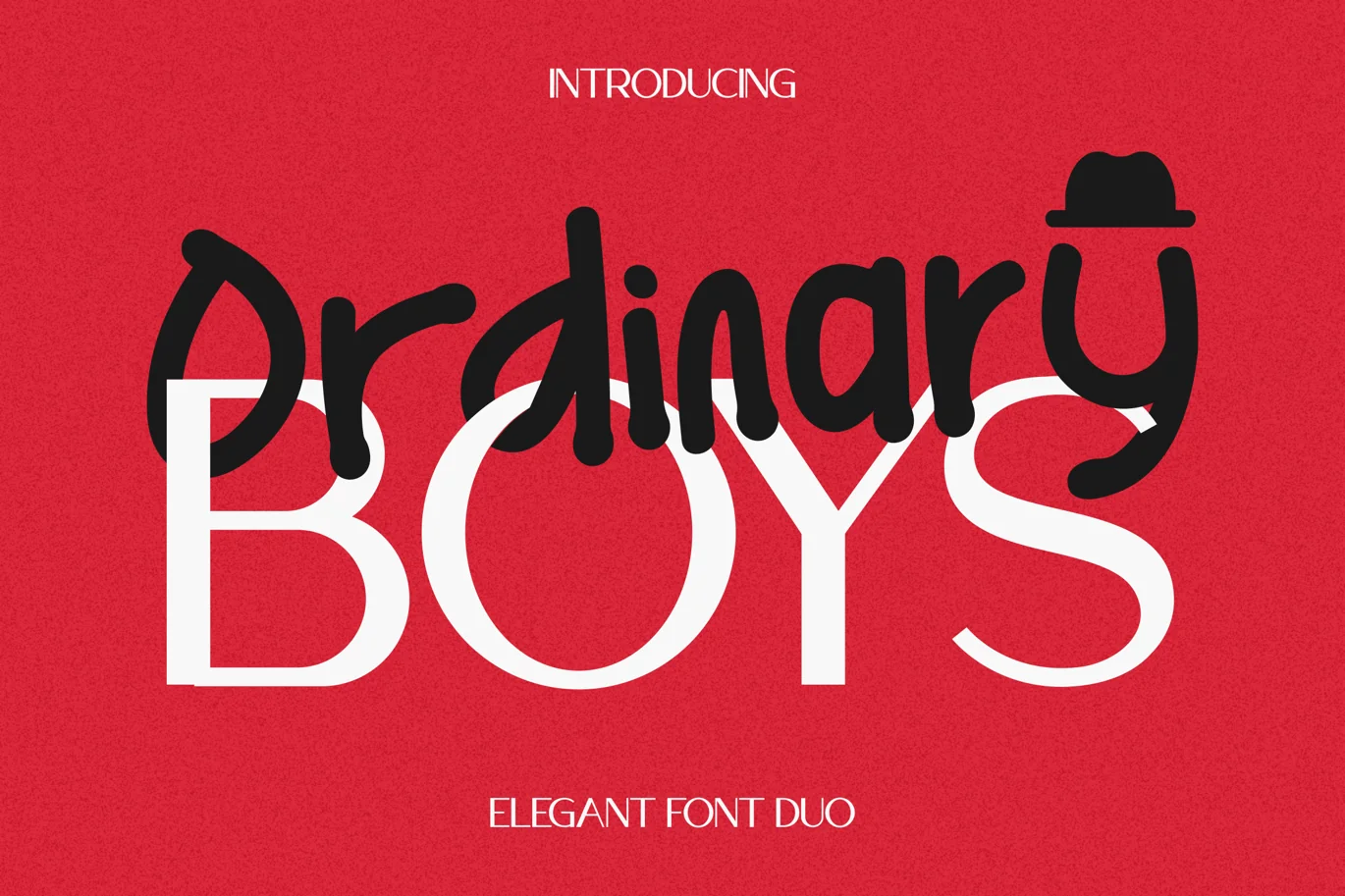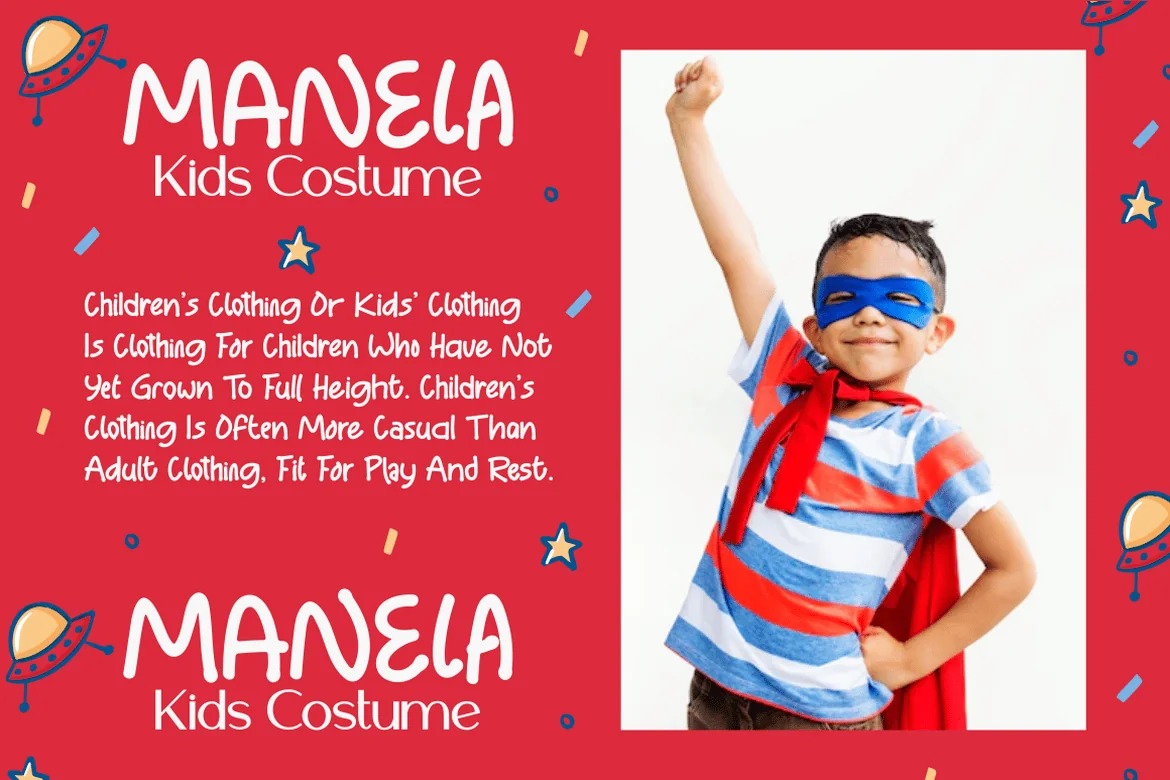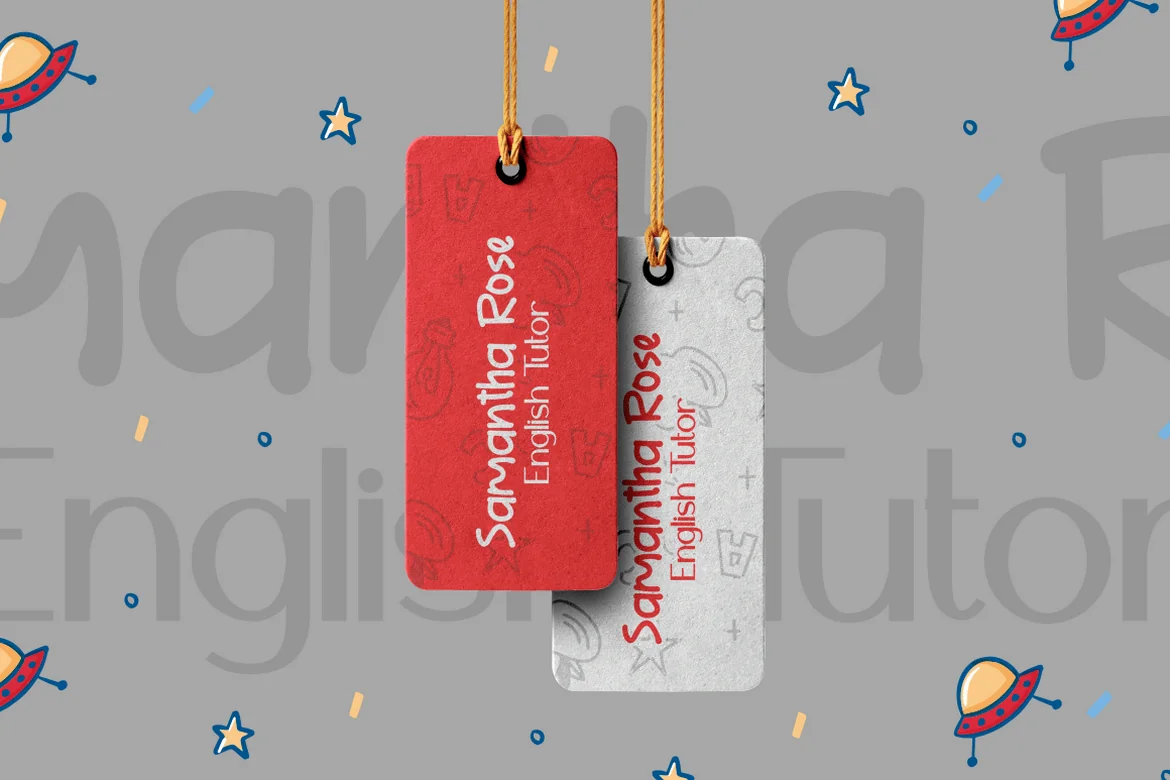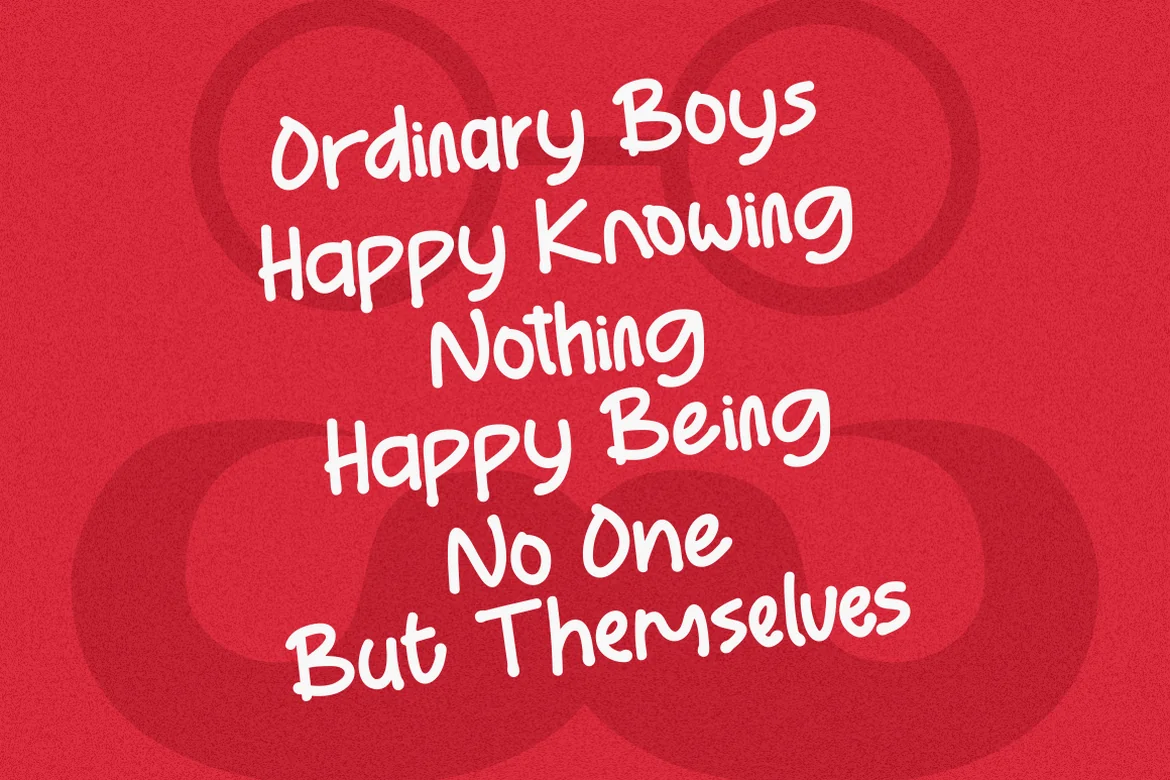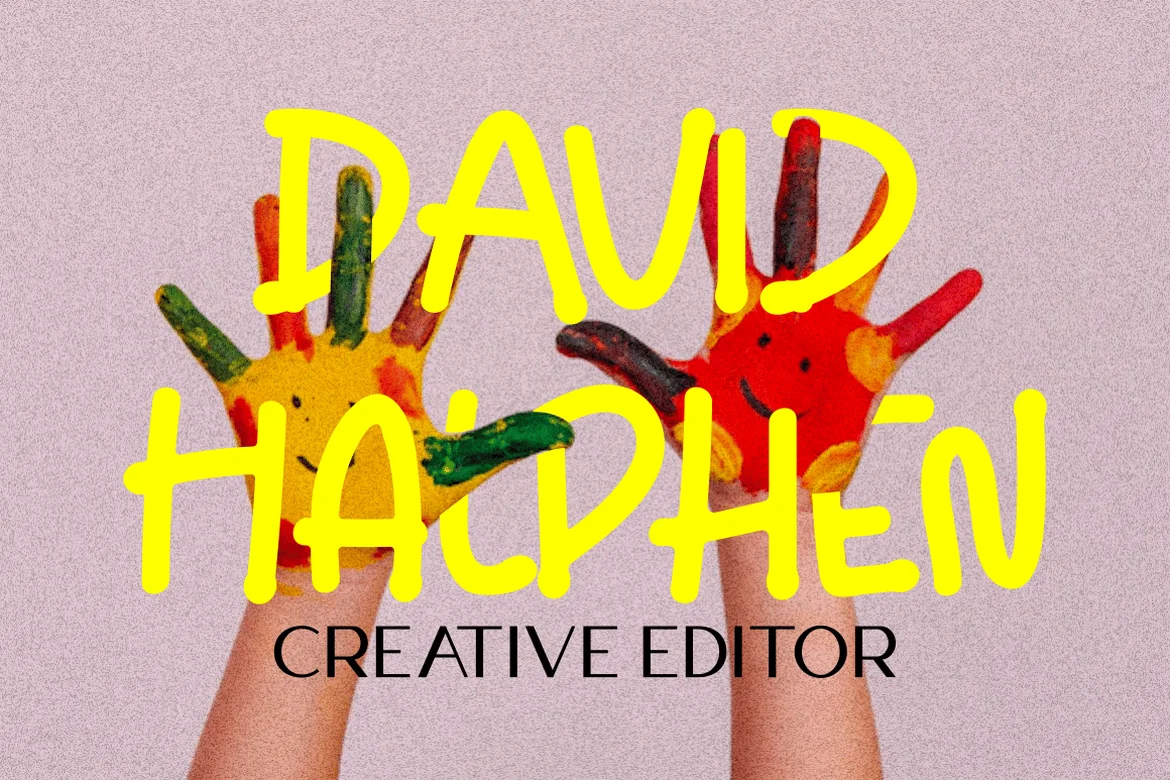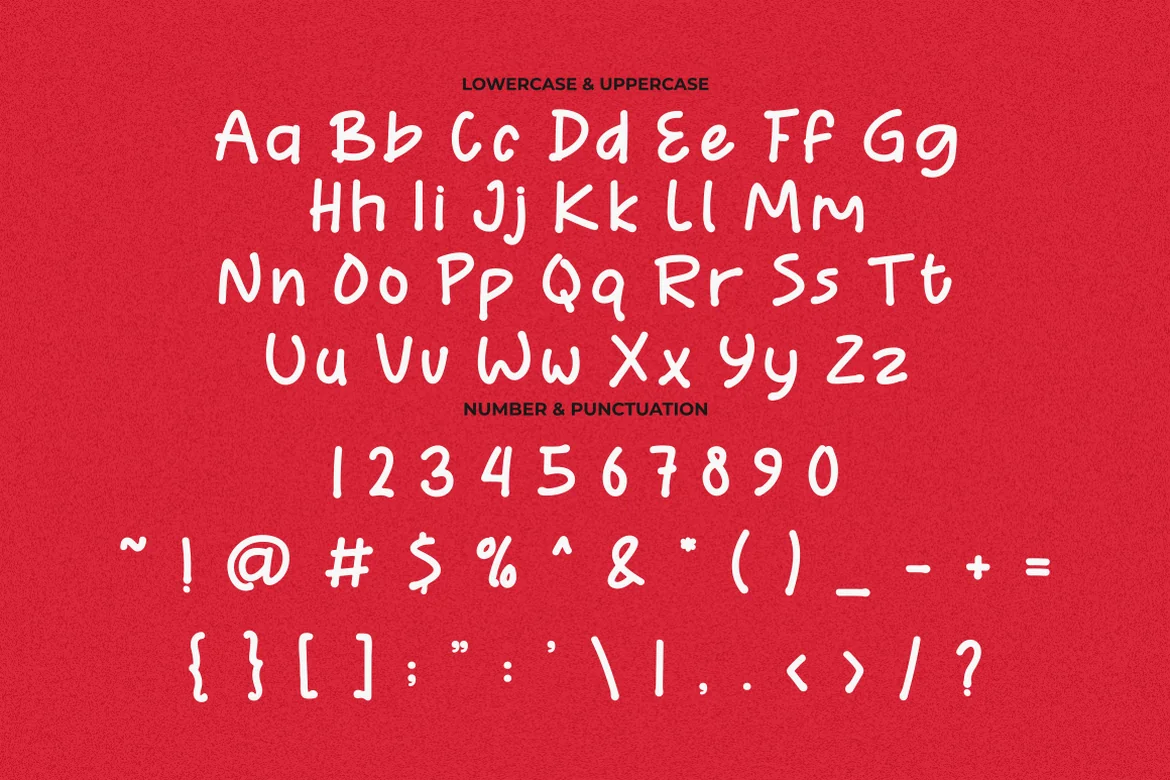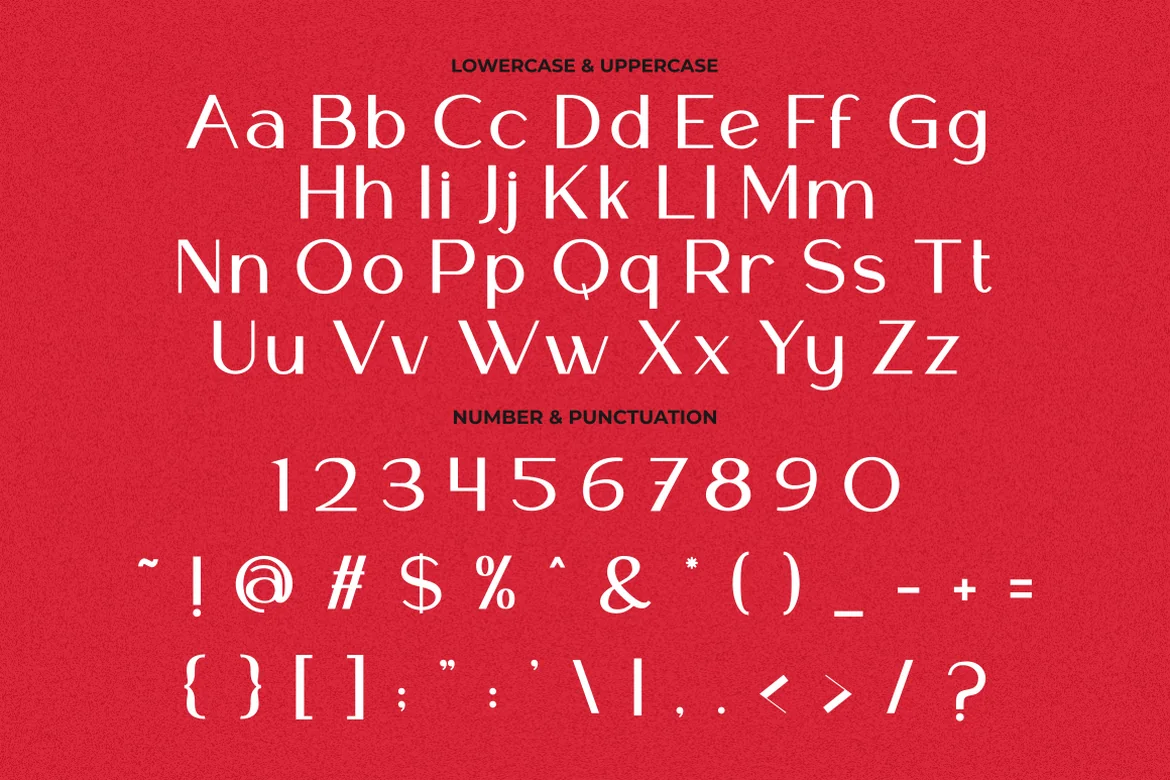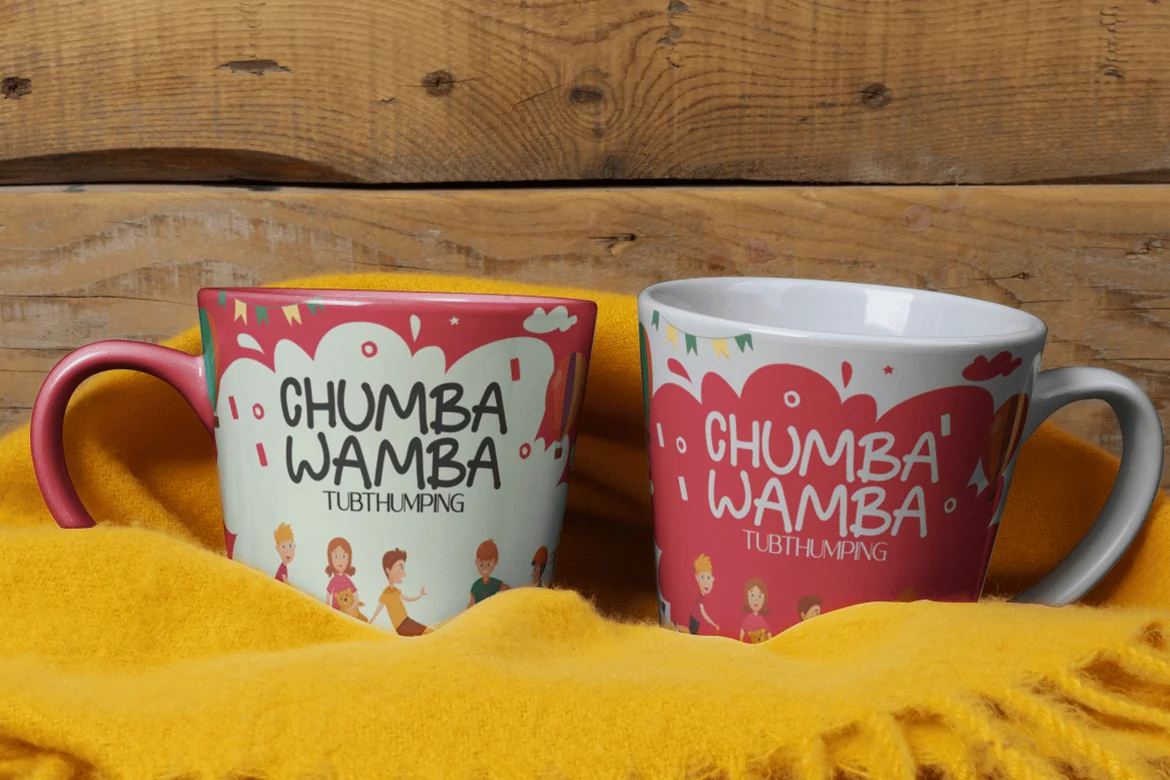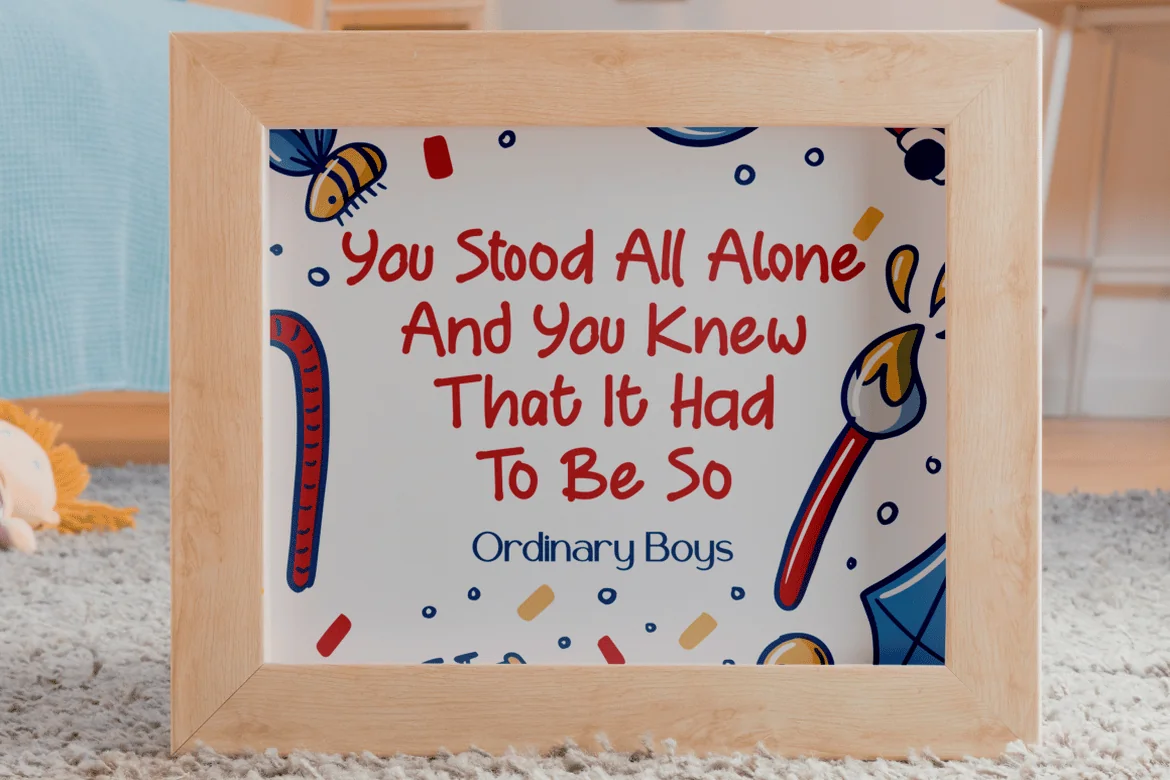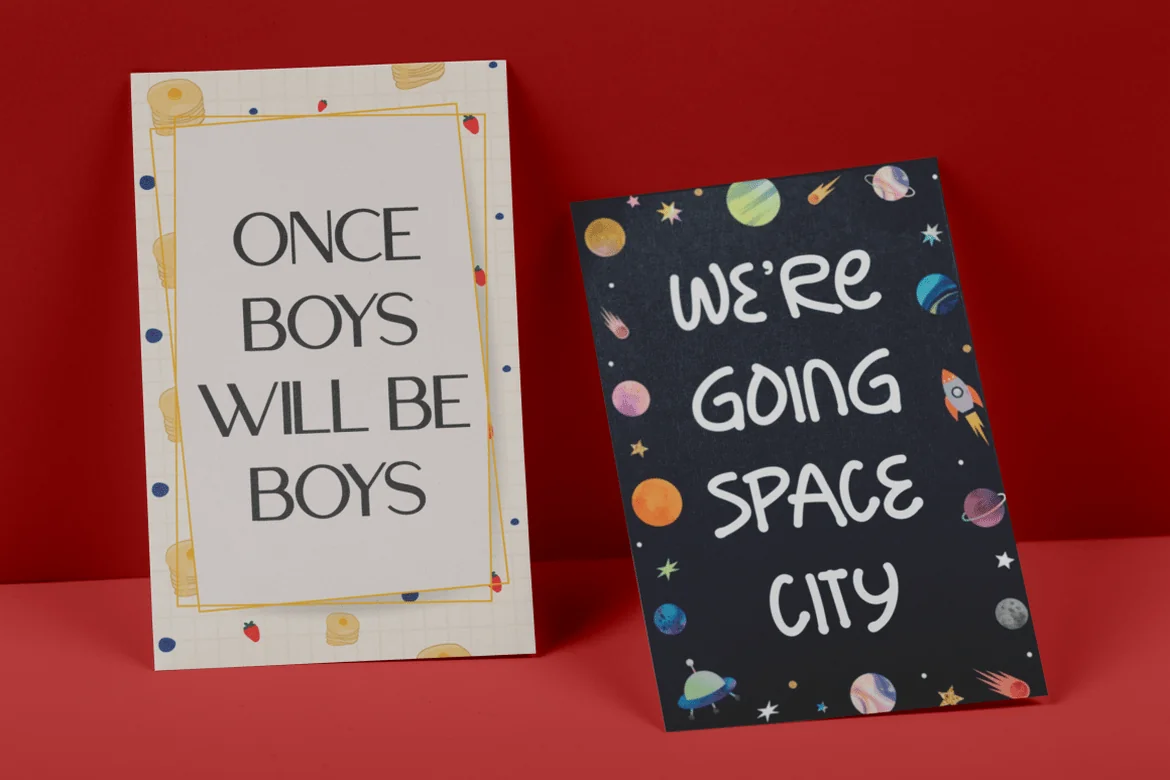
Ordinary Boys – Elegant Font Duo
Ordinary Boys – Elegant Font Duo is a delightful and versatile font combination that consists of a modern sans-serif font and a playful handwriting font. With a perfect blend of modern elegance and fun, this font duo offers creative possibilities for various design themes. The sans-serif font exudes sophistication and is ideal for modern and elegant projects, while the handwriting font adds a playful and enjoyable touch, perfect for fun and lighthearted designs. Whether you’re creating logos, headlines, titles, invitations, greeting cards, printing materials, or designs for children, Ordinary Boys will bring charm and character to your projects.
The modern and playful style of Ordinary Boys is what sets it apart. The sans-serif font showcases clean lines and a sleek design, conveying a sense of elegance and professionalism. On the other hand, the handwriting font injects a fun and whimsical vibe, adding a touch of enjoyment and personality to your text. The versatility of this font duo allows you to seamlessly switch between elegant and playful designs, making it suitable for a wide range of projects.
Ordinary Boys – Elegant Font Duo brings the best of both worlds to your design projects. Its unique combination of modern elegance and playful fun allows you to create a diverse range of designs, catering to different themes and styles. Whether you’re designing for sophisticated brands or playful children’s themes, Ordinary Boys will elevate your designs with its charming and delightful touch, making your projects truly stand out with its versatility and character.